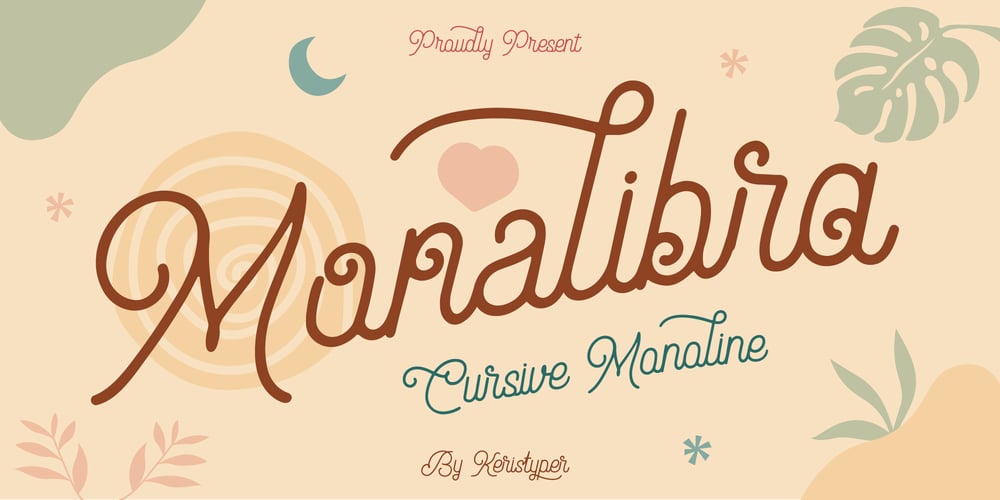
Monalibra
Monalibra font
Monalibra Font Family was designed by Tezar Tantular and published by Keristyper Studio. Monalibra contains 1 styles and family package options. Introducing Monalibra, an elegant vintage handcrafted font. Designed with a really clean and clear monoline cursive script typeface that is easy to read while keeping a sense of personality. This font is good for logo design, Social media, Movie Titles, Books Titles, short text even long text letters, and good for your secondary text font with sans or serif.**Featured:*** Standard Uppercase & Lowercase* Numeral & Punctuation* Multilingual : ä ö ü Ä Ö Ü ß ¿ ¡* Alternate & Ligature* PUA encodedWe recommend programs that support the OpenType feature and the Glyphs panel such as Adobe applications or Corel Draw. so you can use all the variations of the glyphs.Hope you enjoy our fonts!